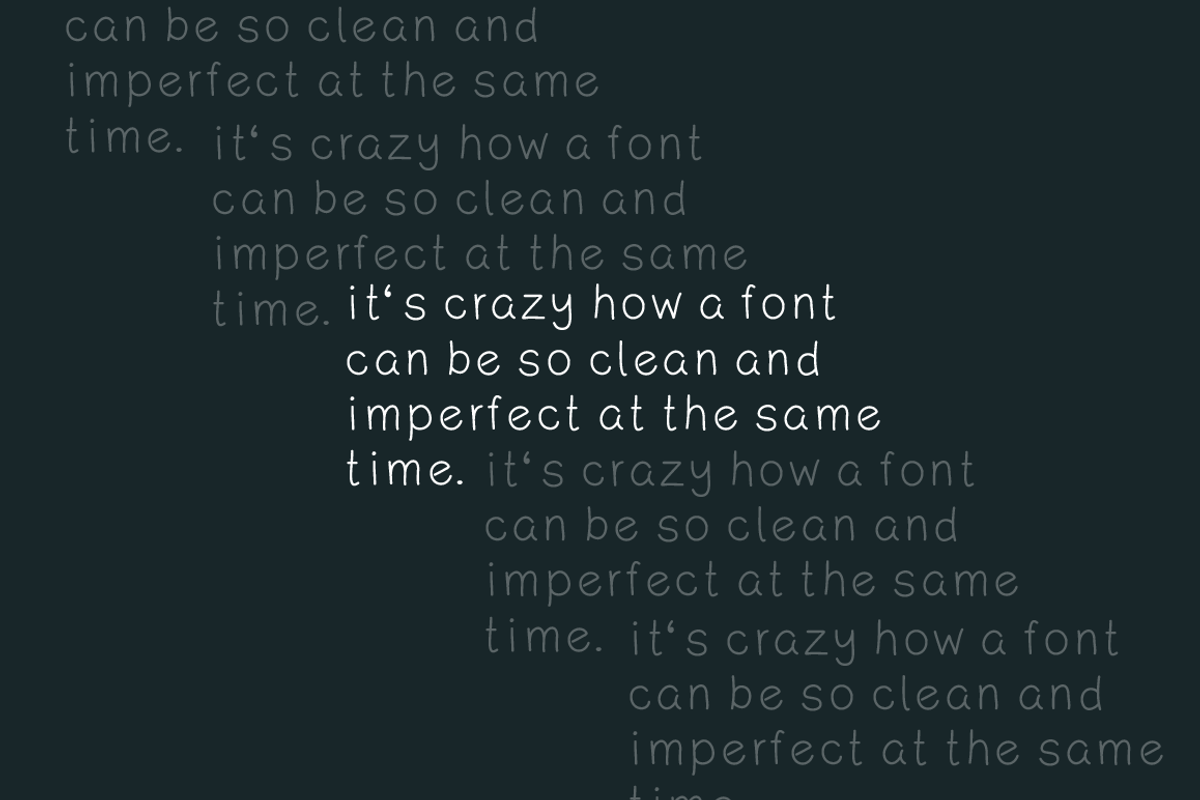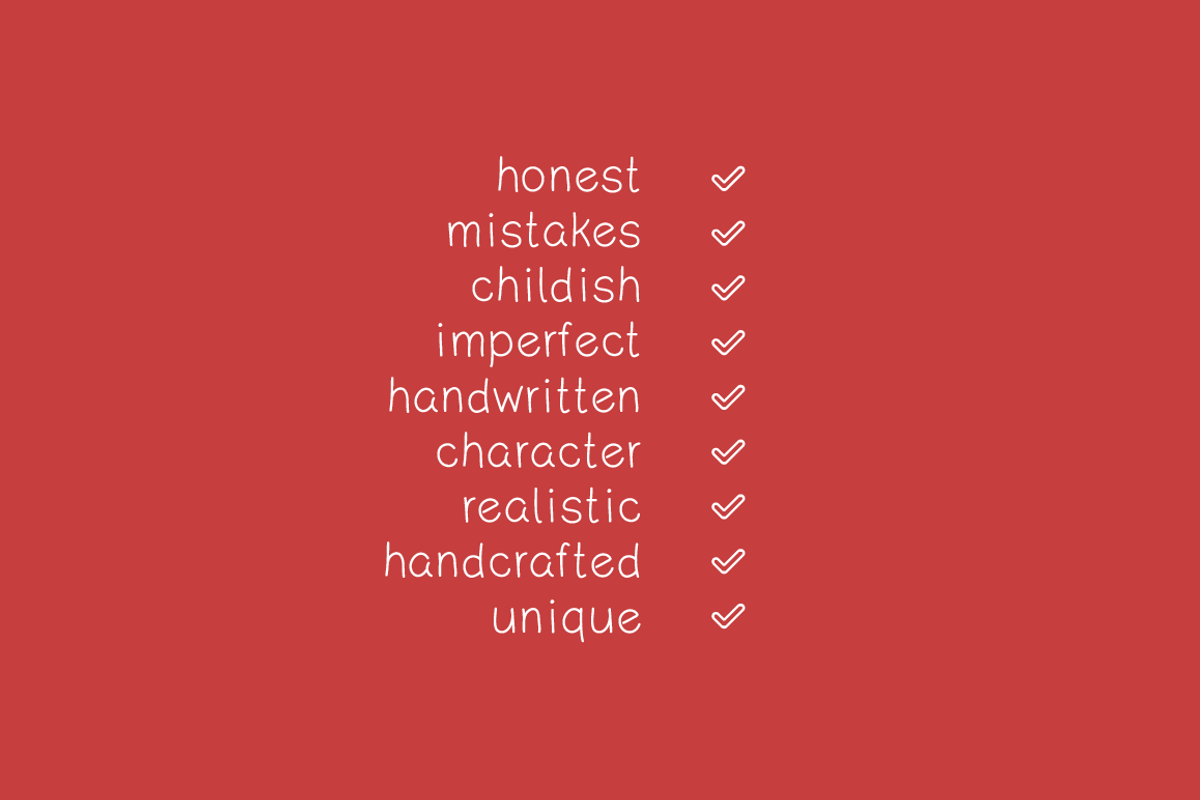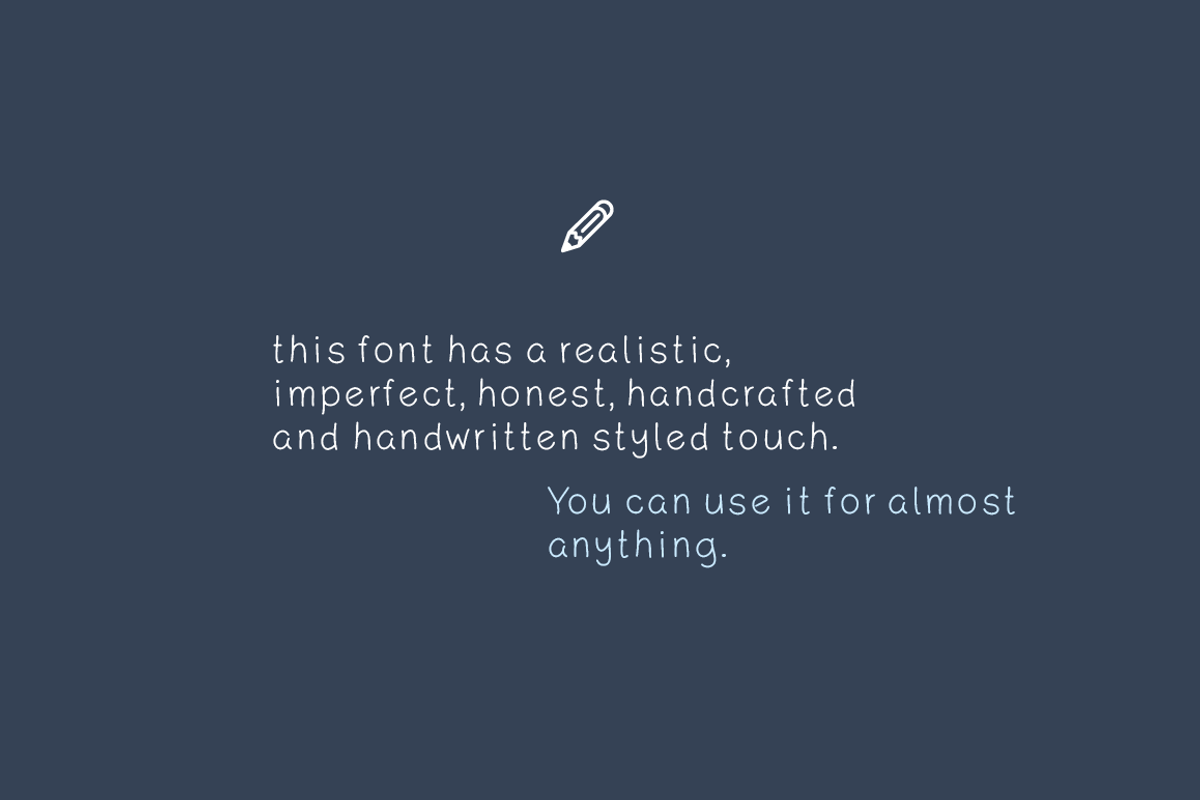
Kanada - Font
Kanada - Font by Shaped Fonts is a font selected for branding, posters, packaging, typography.
Why Kanada - Font is worth a look
Kanada - Font by Shaped Fonts fits naturally into Branding, posters, packaging, typography.